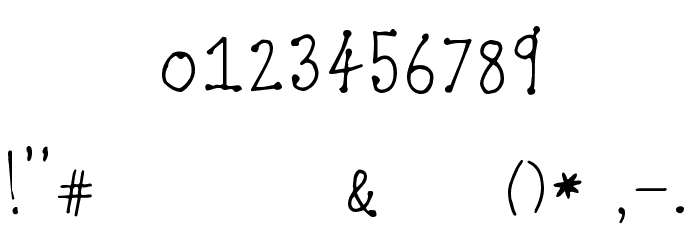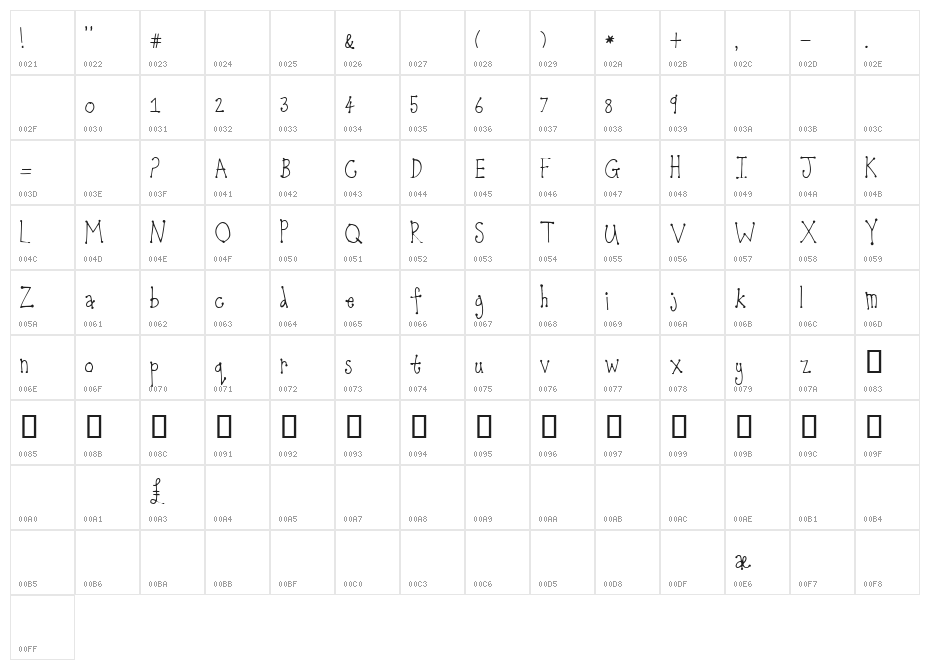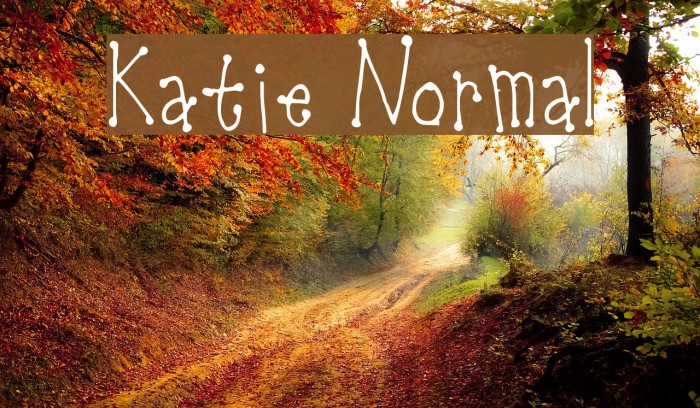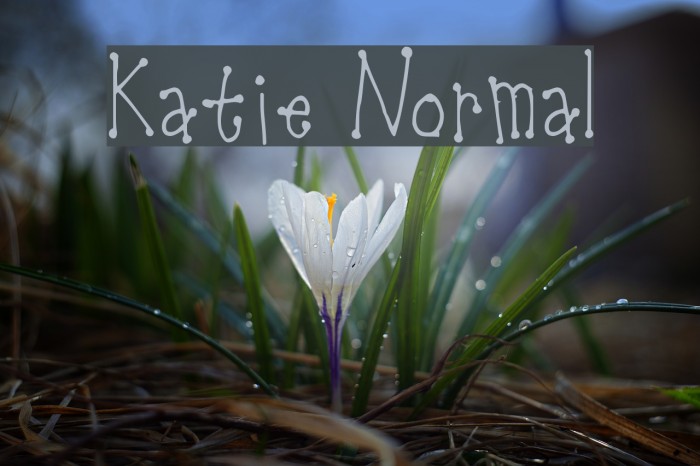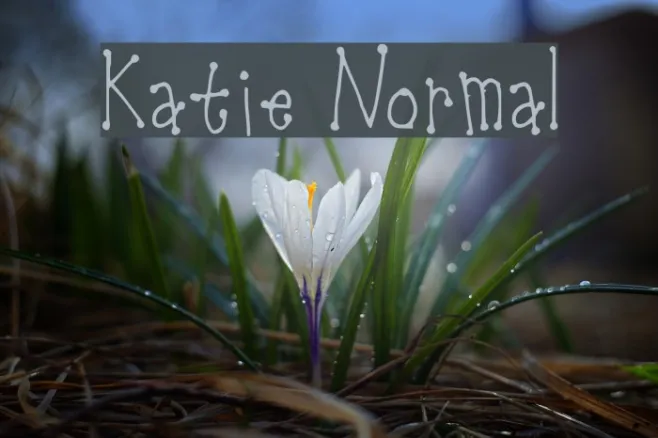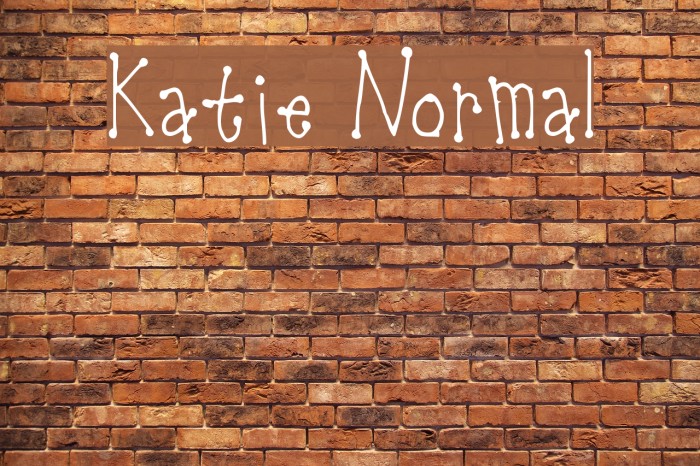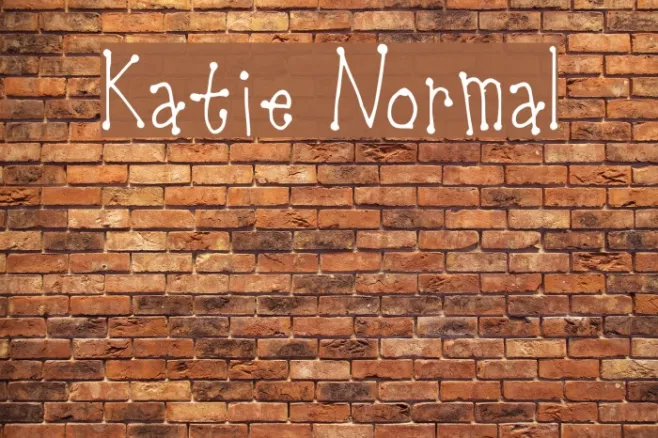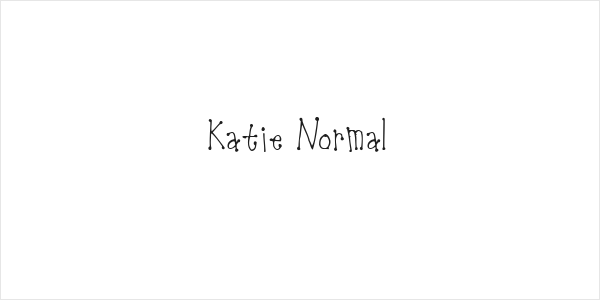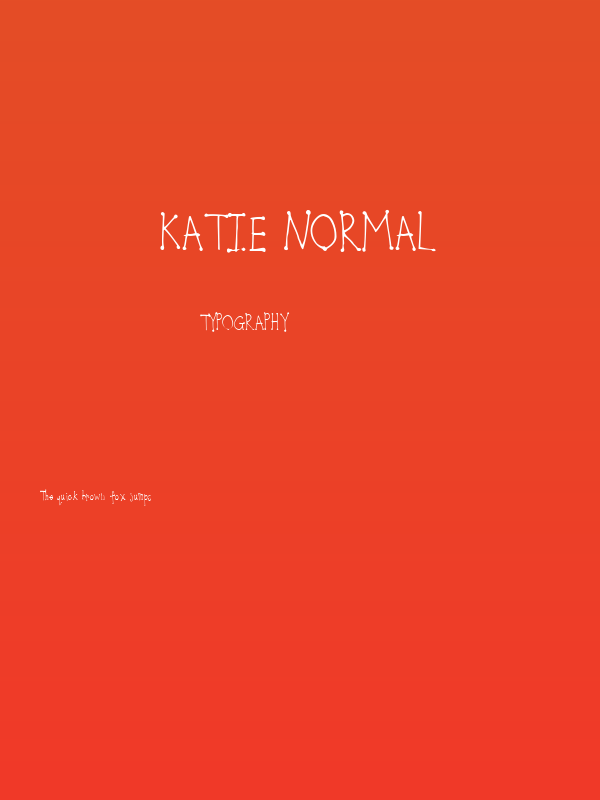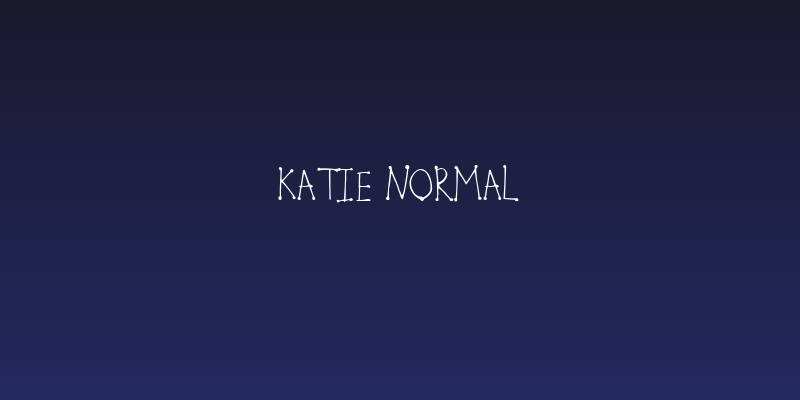
Katie Normal Font
Katie Normal Description
This font features a whimsical and playful design, characterized by its irregular, hand-drawn appearance. The letters are slightly uneven, giving it a casual and informal feel. Each character has a unique, quirky touch, with varying stroke thickness that adds to its charm. The font maintains a consistent baseline, but the heights of the characters vary, enhancing its playful nature. The rounded edges and subtle curves contribute to its friendly and approachable style. This font is perfect for projects that require a personal, handcrafted touch, such as children's books, greeting cards, or creative branding.
| Use Case | Headlines, Creative projects, Informal text |
| Proposed Projects | Ideal for children's books, greeting cards, creative branding, and playful designs. |